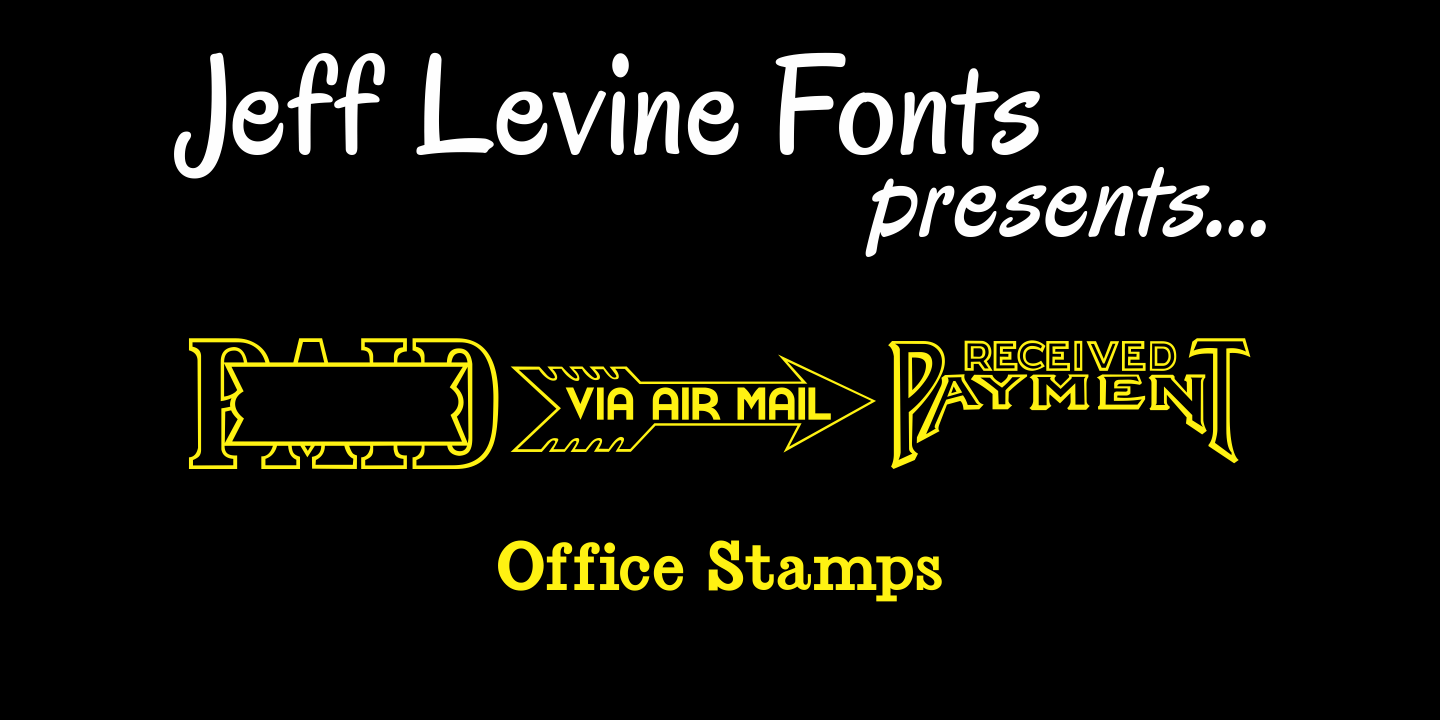
Office Stamps
Office Stamps JNL is a collection of twenty-six images recreating the familiar 'stock' rubber stamps used in offices for decades before self-inking stamps and desktop printing made them relics of the past. Modeled from vintage sources, all of the images have been re-drawn by Jeff Levine to have a crisper look than simply utilizing scanned imprints of old marking devices.